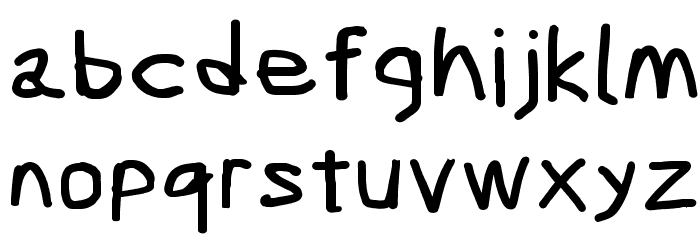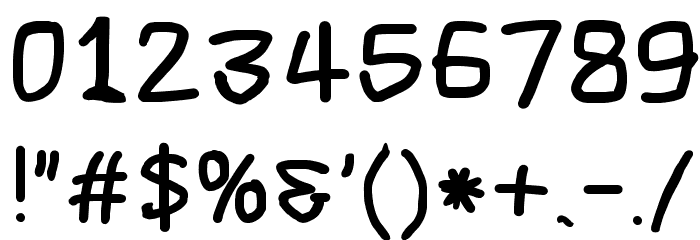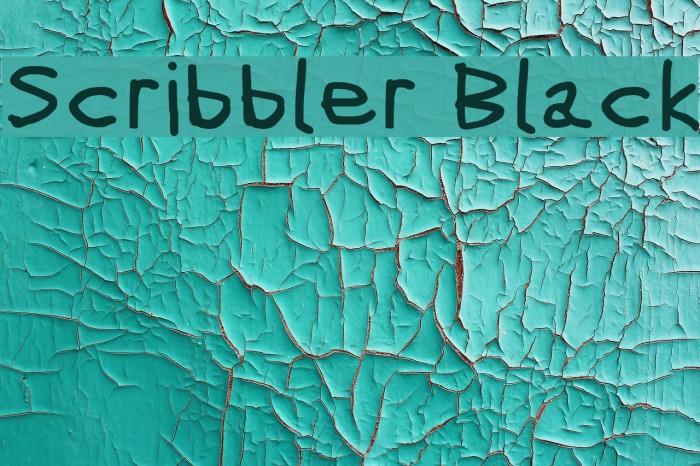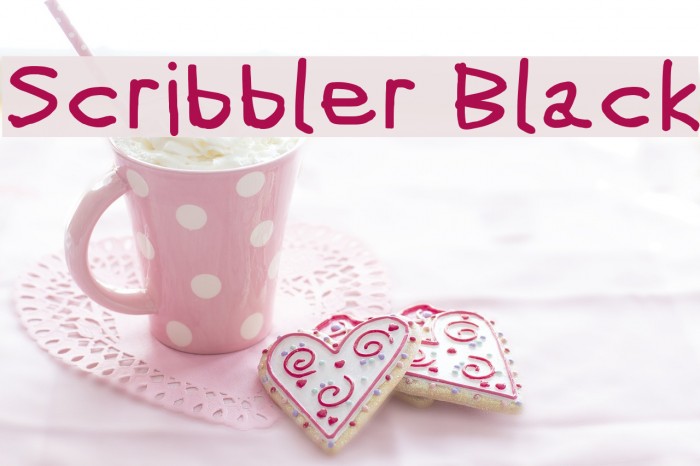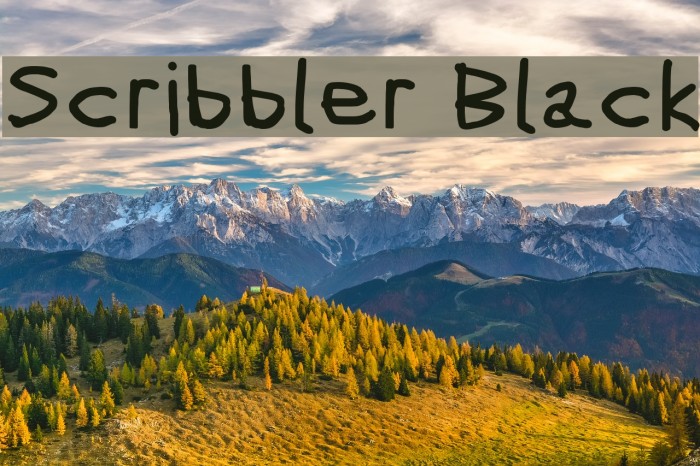
Scribbler Black Font
This font exudes a playful and casual handwritten style, characterized by its bold and slightly irregular strokes. The letters are rounded and have a natural flow, mimicking the appearance of handwriting with a marker or thick pen. The uppercase and lowercase letters maintain a consistent style, with a slight slant that adds to the informal feel. Numbers and special characters are crafted with the same playful touch, ensuring uniformity across all glyphs. This font is perfect for projects that require a personal, friendly, and approachable aesthetic.
A bold, playful handwritten font with a casual and friendly style.
- Proposed Projects: Ideal for children's books, greeting cards, casual branding, and social media graphics.
- Category: Handwritten
- Overall Style: Casual, Playful
- Use Case: Headlines, Informal text, Branding